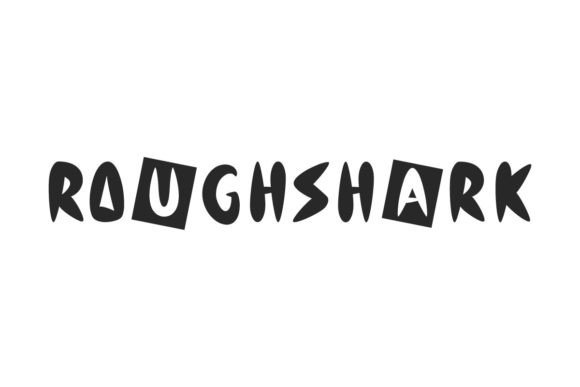
Journey into the world of Roughshark Font, a display font that captivates with its comic flair and bold personality. Inspired by the sharp edges of shark teeth, each letter in this font exudes a distinct character, making it the perfect choice for designers seeking to make a statement.
With its striking visual appeal, Roughshark Font is a versatile tool for a diverse range of industries, including animation, cartoon design, education, food branding, gaming, children's products, movies, publishing, sports, and more. Unleash your creativity and let Roughshark Font add a touch of playful sophistication to your projects.
Dive into the depths of Roughshark Font's features and discover a world of possibilities:
* **Unique Comic Style:** Roughshark Font's sharp edges and distinctive letterforms create a captivating comic-book aesthetic that grabs attention and leaves a lasting impression.
* **Versatile Applications:** Whether you're designing eye-catching studio signage, creating vibrant posters, or adding a touch of fun to your social media graphics, Roughshark Font adapts seamlessly to a wide range of projects.
* **Perfect for Branding:** Make your brand stand out with Roughshark Font's bold and memorable style. Its unique design is sure to leave a lasting impression on your audience and help your brand shine.
* **Multiple Industries:** Explore the endless possibilities of Roughshark Font across various industries. From the playful energy of children's products to the dynamic world of sports, this font seamlessly blends with diverse themes and styles.
Embark on a creative journey with Roughshark Font and let its bold and playful spirit elevate your designs to new heights. Dive into the world of typography with this remarkable font and unlock a realm of endless possibilities.